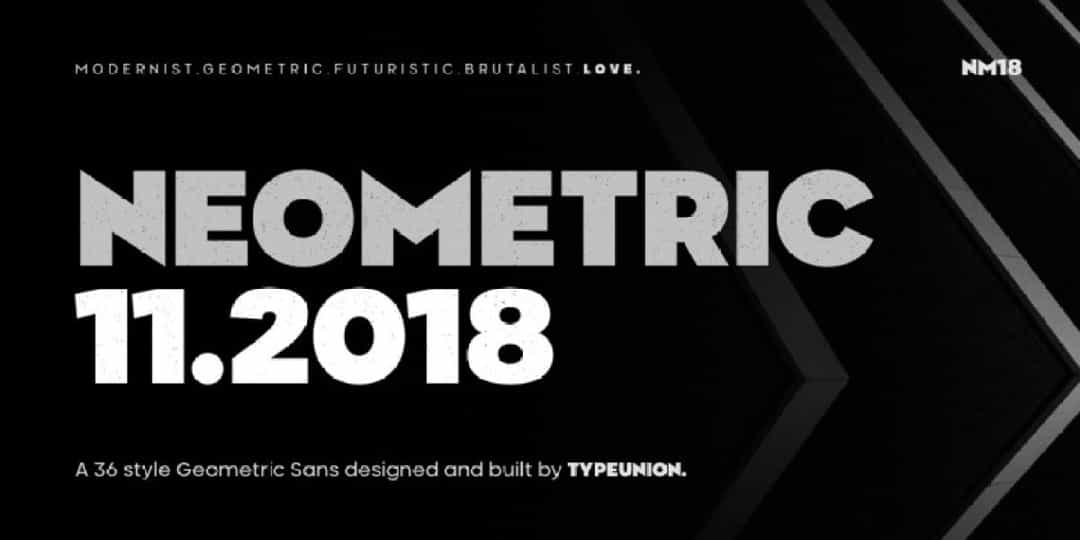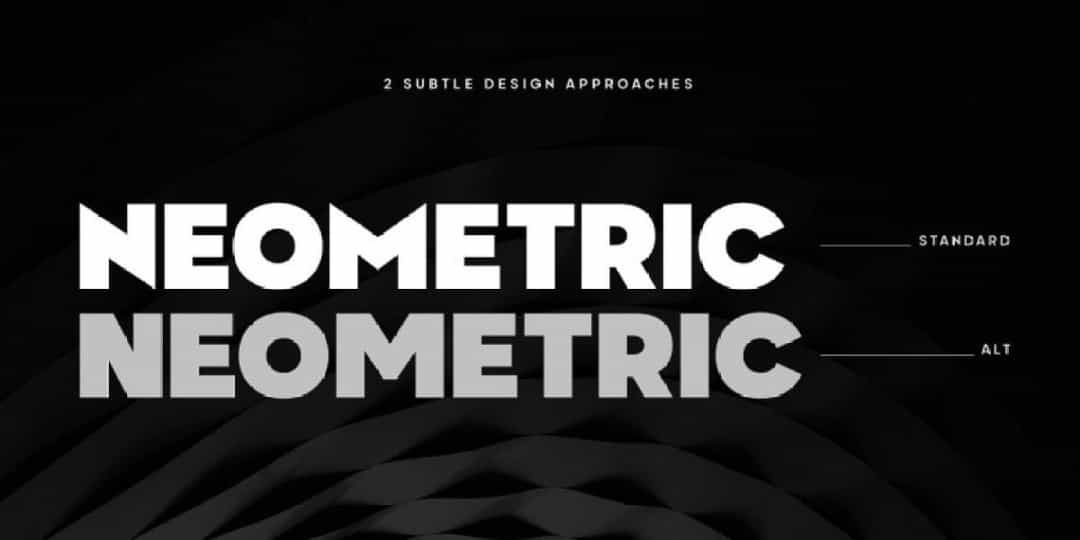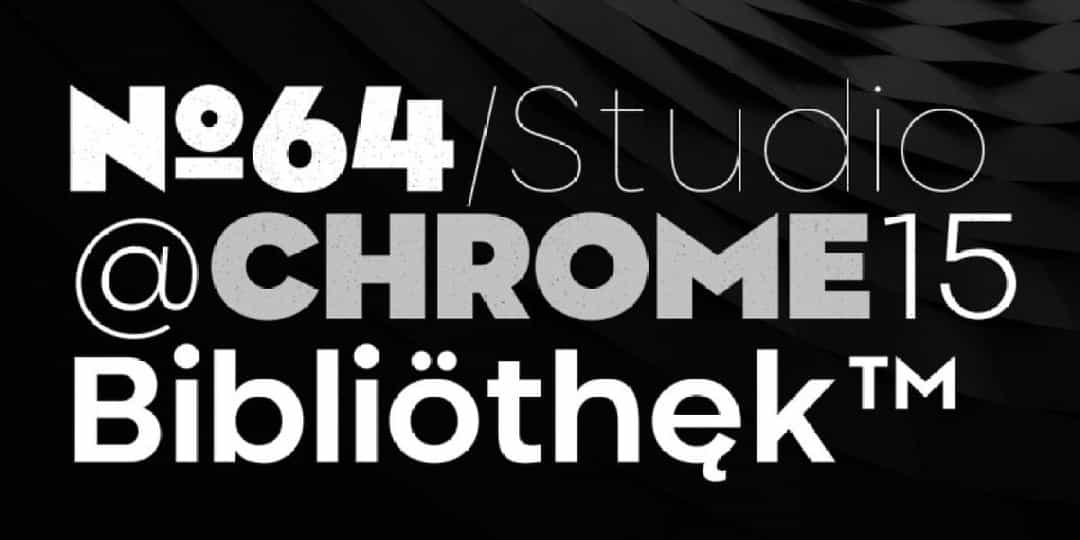
Neometric is a modern font family with a geometric base but a more natural look in heavier weights, for an enhanced visual experience across weight ranges. The standard version features sharp apex tops on all N & M characters creating an eye-catching and memorable style, making this font suitable for branding as well as both digital and offline applications.